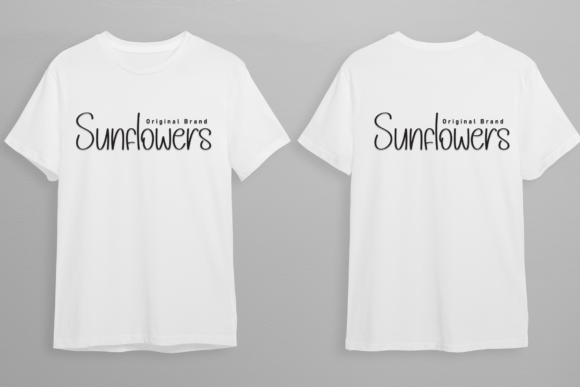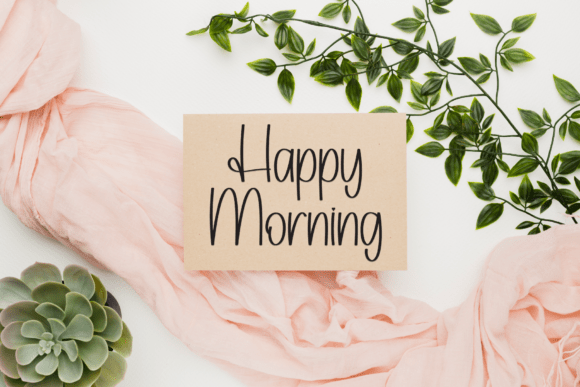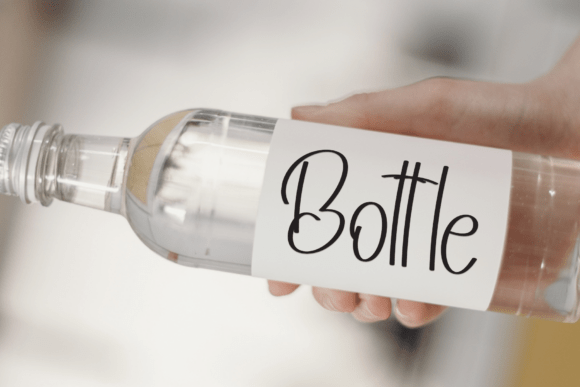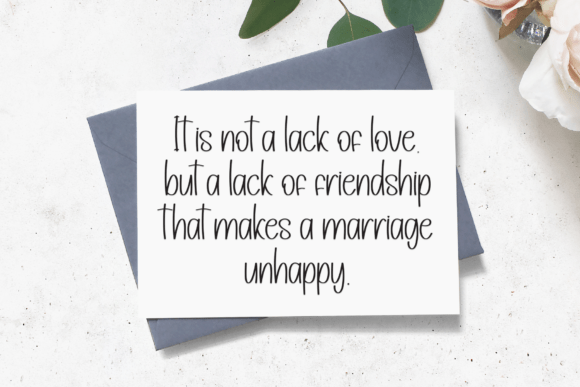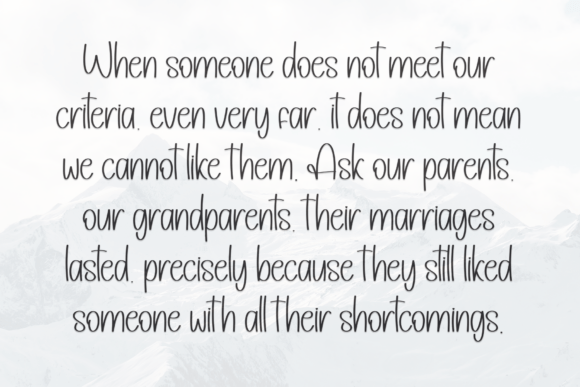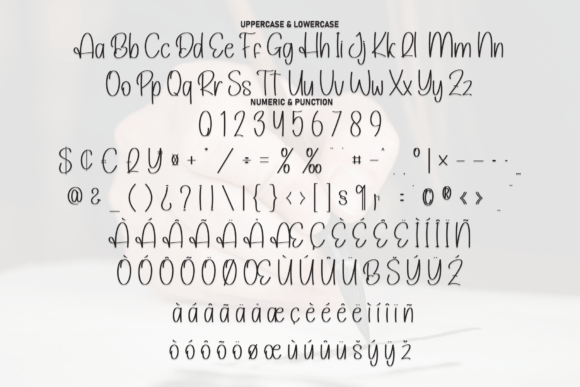
Introduction to Ballpoint Calligraphy Font
Do you remember the feeling of scribbling with a favorite pen, watching your handwriting come alive on the page? That same sense of creative freedom and joy is what inspired the Ballpoint Calligraphy Font, a beautiful script font that brings a touch of elegance to any design project.
Whether you’re a seasoned designer or just starting out, this high-quality font is a valuable resource for adding a personal touch to your work. With its fluid strokes and refined details, Ballpoint Calligraphy Font is perfect for logos, invitations, and social media graphics, making it an essential design tool for anyone looking to elevate their creative projects.
Key Features of Ballpoint Calligraphy Font
- Unique Ballpoint Calligraphy Font style with a high-quality design, perfect for creative projects that require a touch of elegance.
- Includes a comprehensive character set, including uppercase and lowercase letters, numbers, and special characters.
- Perfect for creating a wide range of creative projects, from wedding invitations to book covers, and from social media graphics to business cards.
Honest Review: Ballpoint Calligraphy Font
I recently stumbled upon the Ballpoint Calligraphy Font and was eager to give it a try in my next creative project. The first thing I noticed was the high quality of the font, which made it perfect for any design resource.
- ✨ The font has a beautiful, hand-written feel to it, making it perfect for quotes, headings, and titles.
- ⚠️ The font may not be suitable for small text sizes, as the characters can become difficult to read.
- ⚠️ The font is only available in a limited number of weights and styles, which may limit its versatility.
Overall, I’m impressed with the Ballpoint Calligraphy Font and would definitely recommend it to designers looking for a high-quality, free design resource. While it may have some limitations, its unique style and transparent background make it a great addition to any creative project.
Common Use Cases for Ballpoint Calligraphy Font
The Ballpoint Calligraphy Font is a versatile design resource that can be used in a variety of creative projects, including wedding invitations, birthday cards, and business logos. It’s also a great choice for creating high-quality social media graphics and website headers.